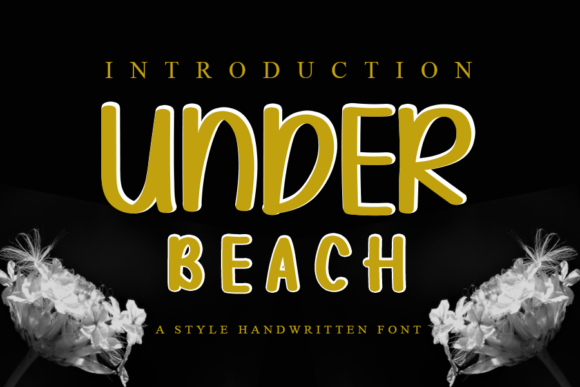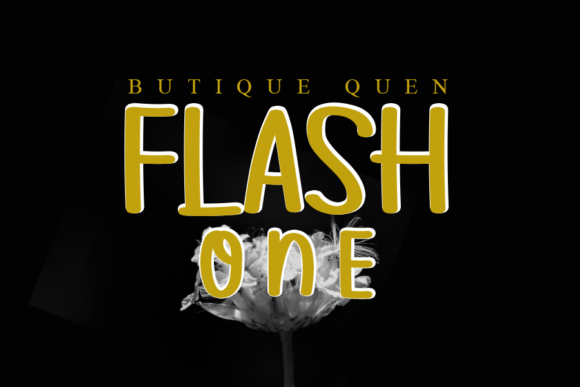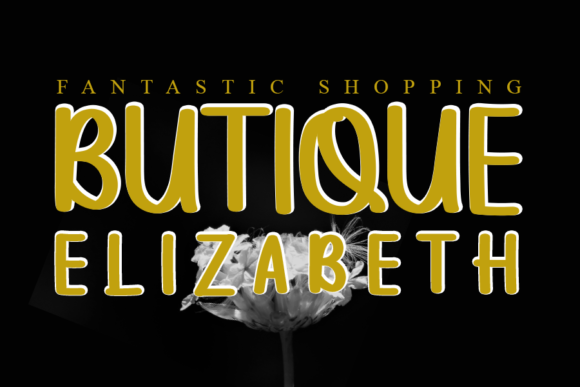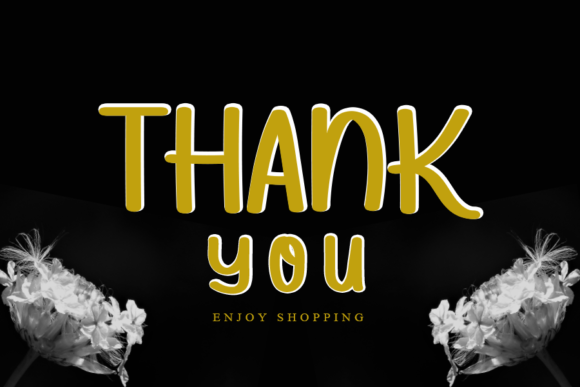
Under Beach Font
About Under Beach Font
Under Beach embodies fun, quirkiness and authenticity. This enchanting handwritten font will turn any creative idea into a true standout.